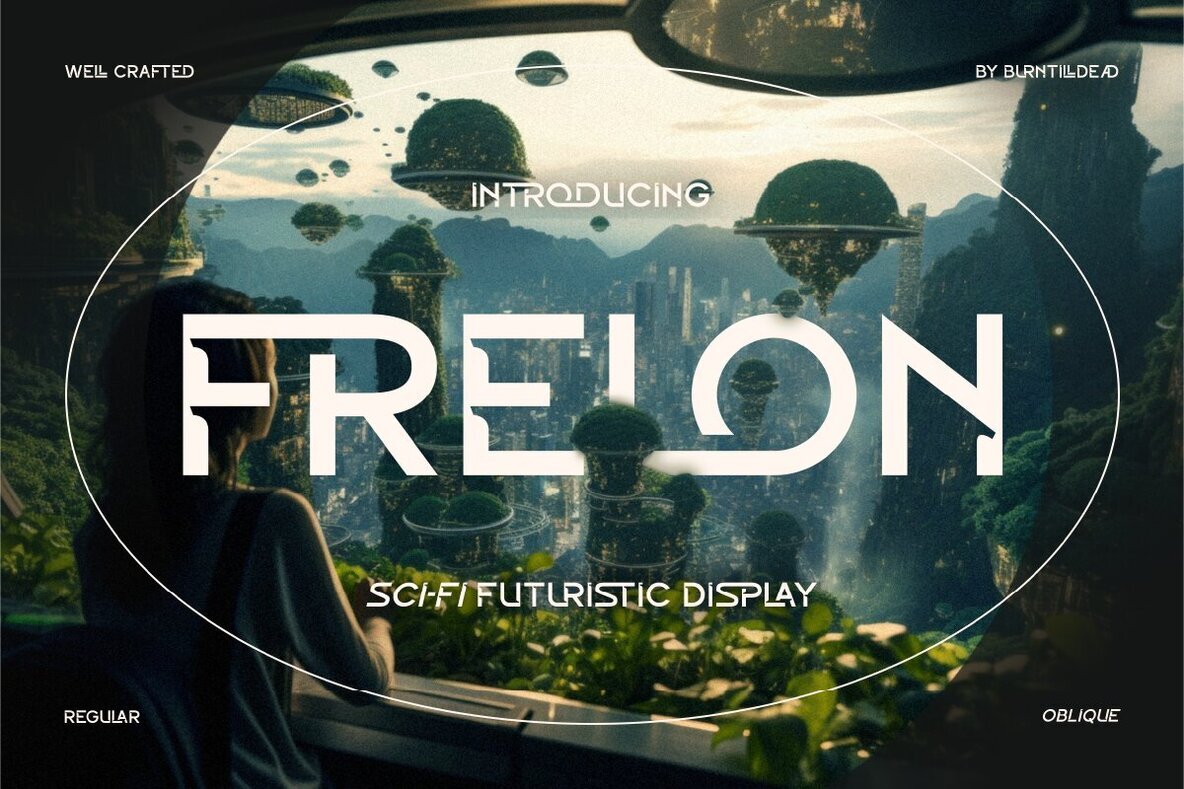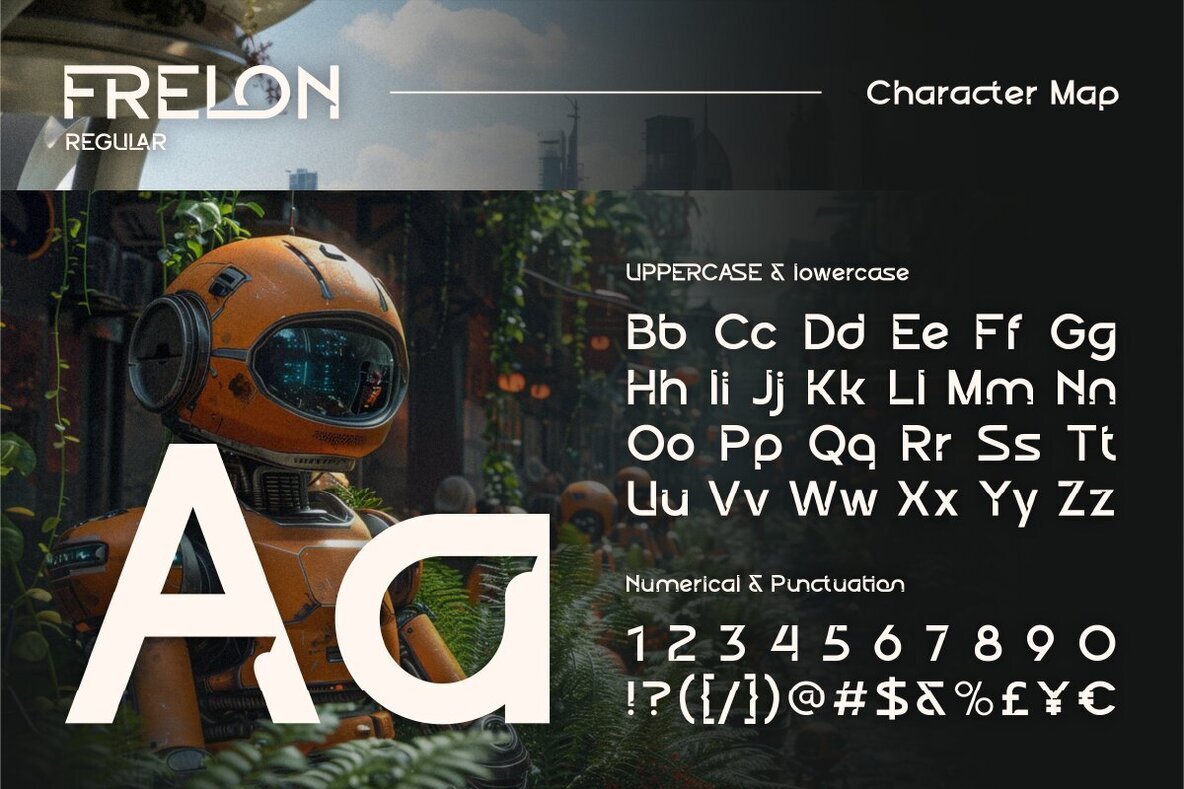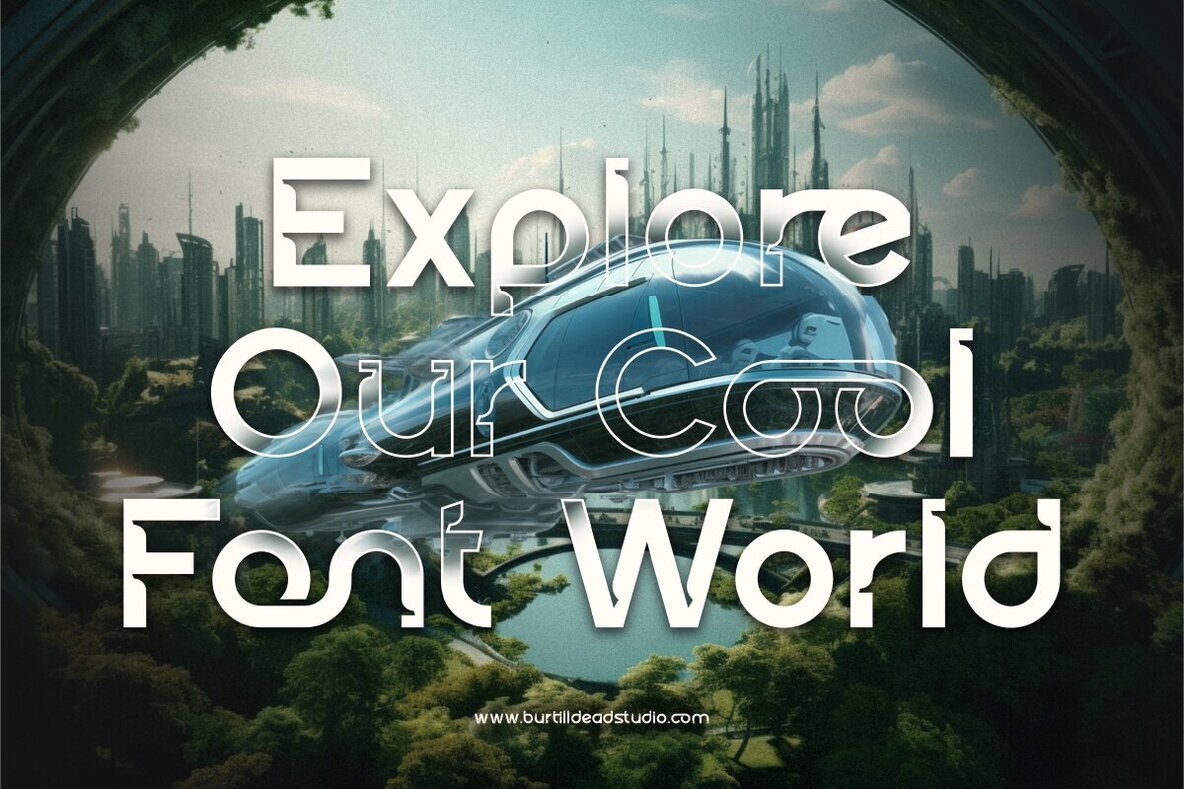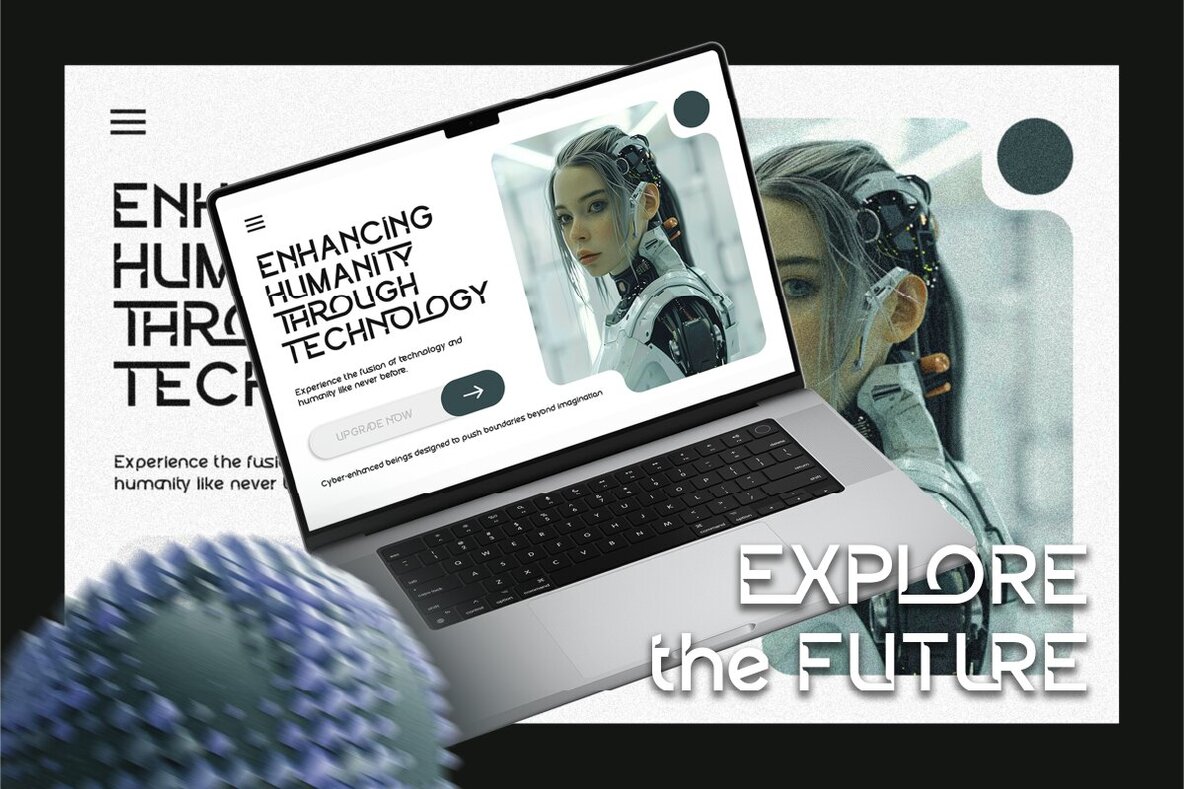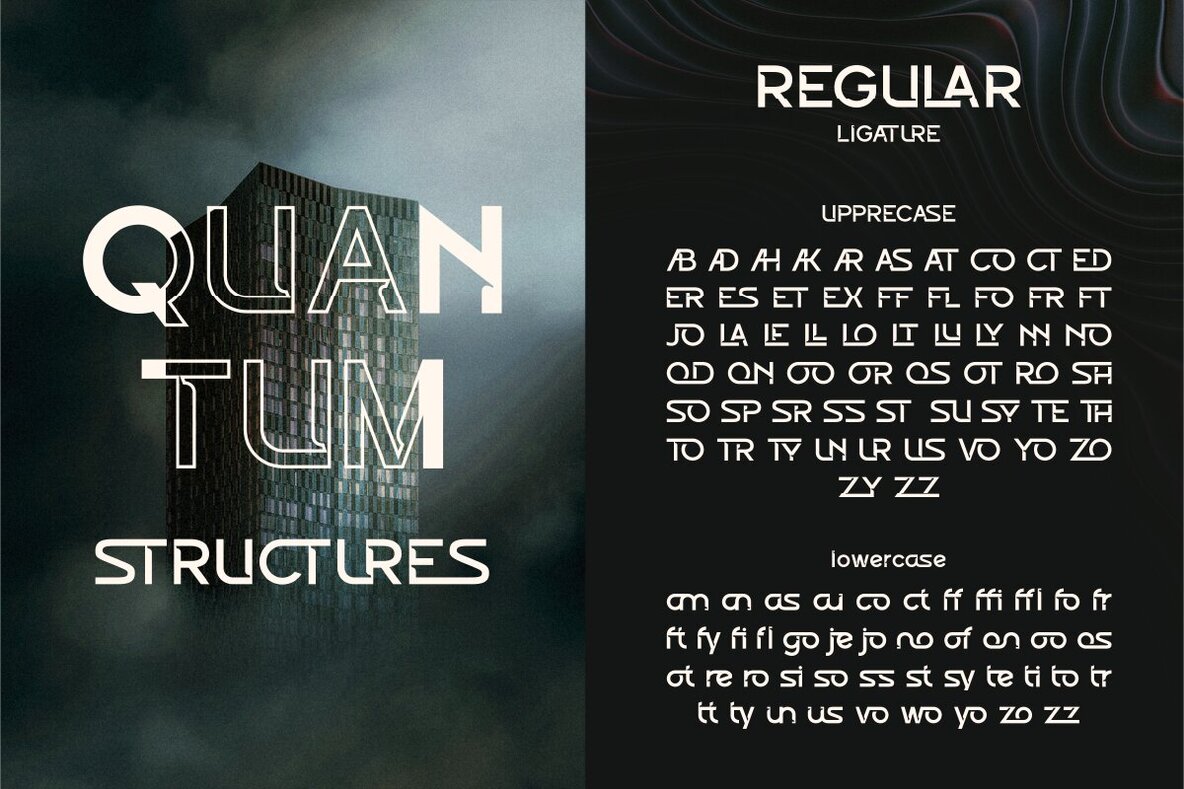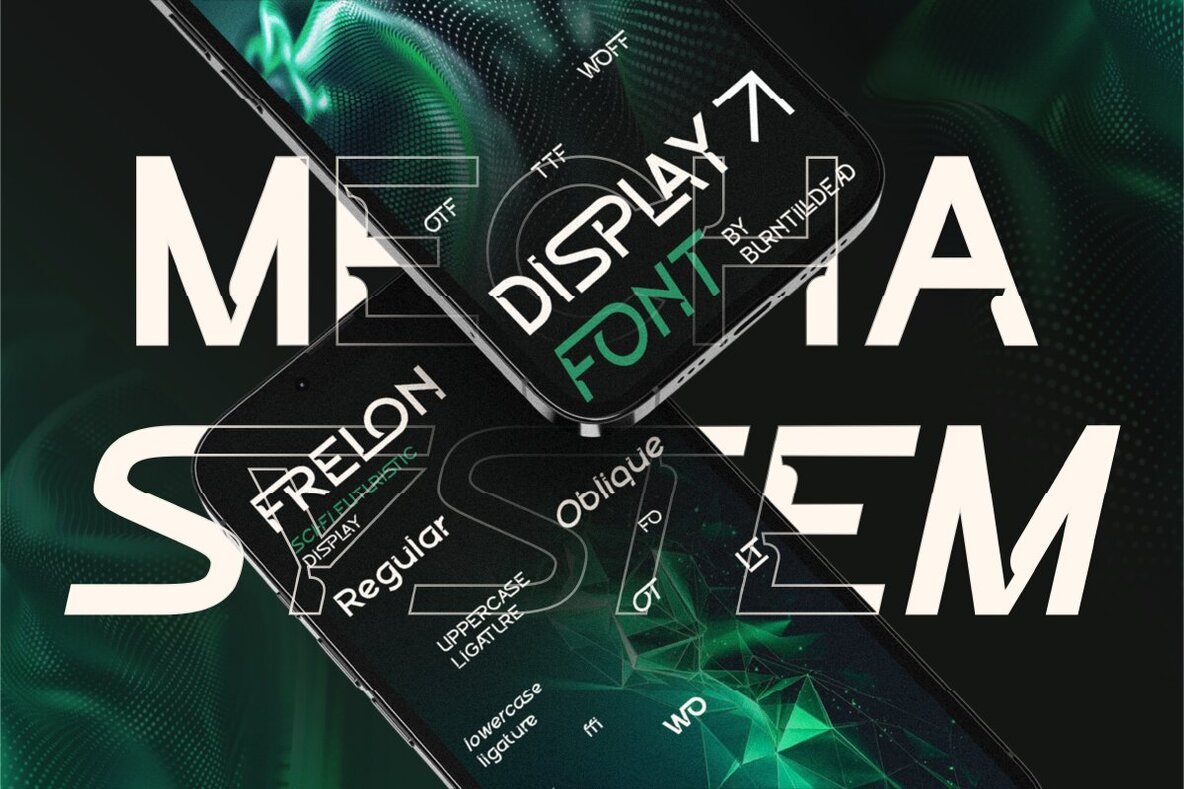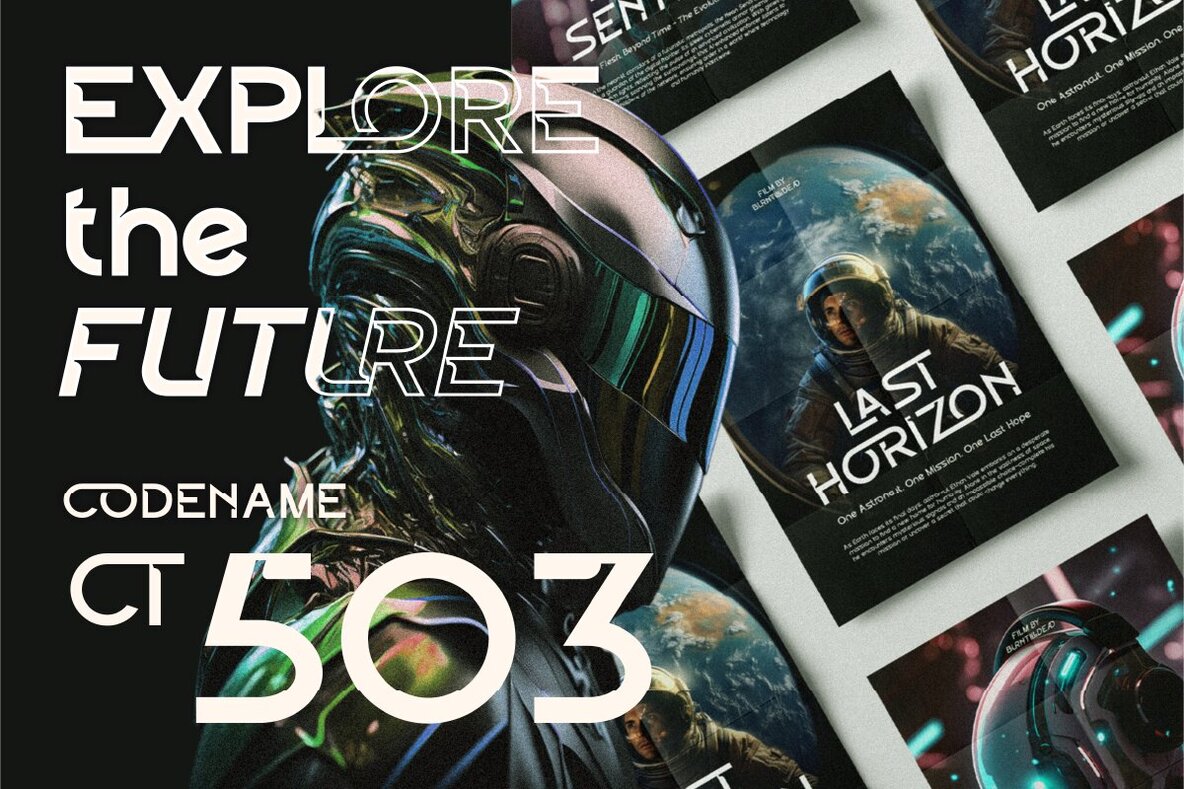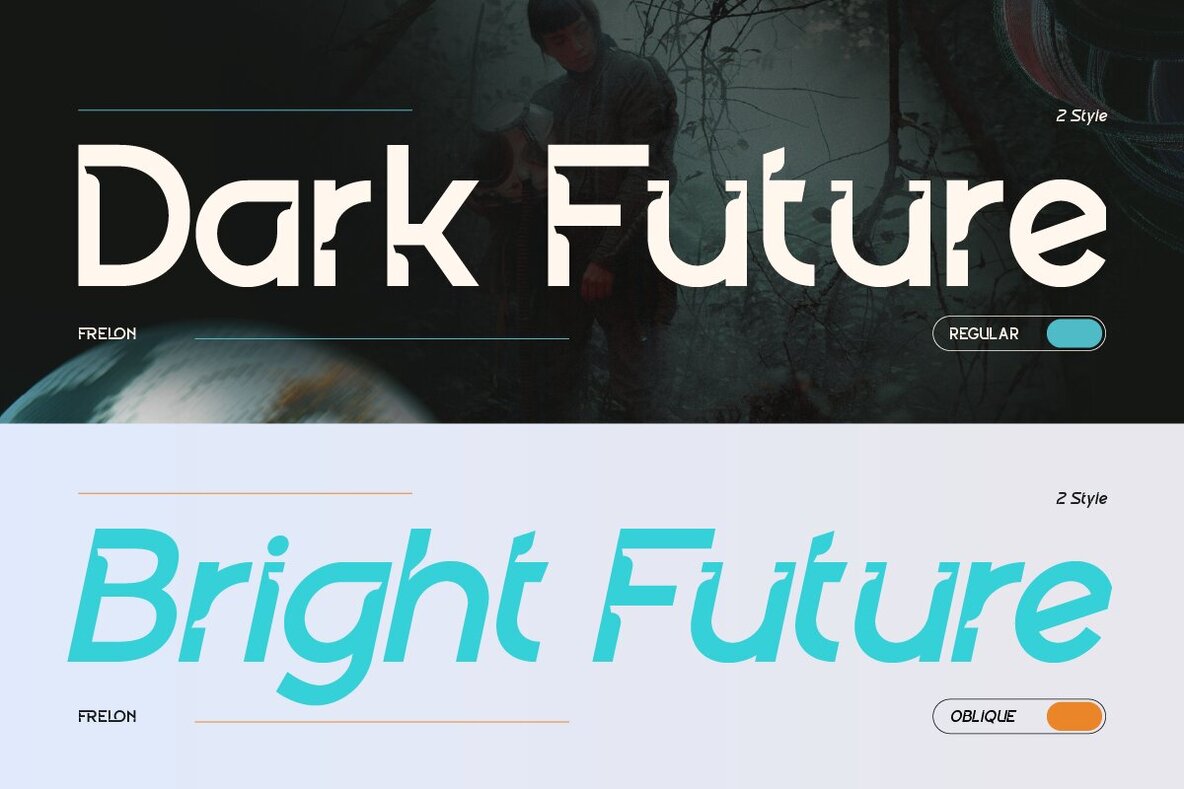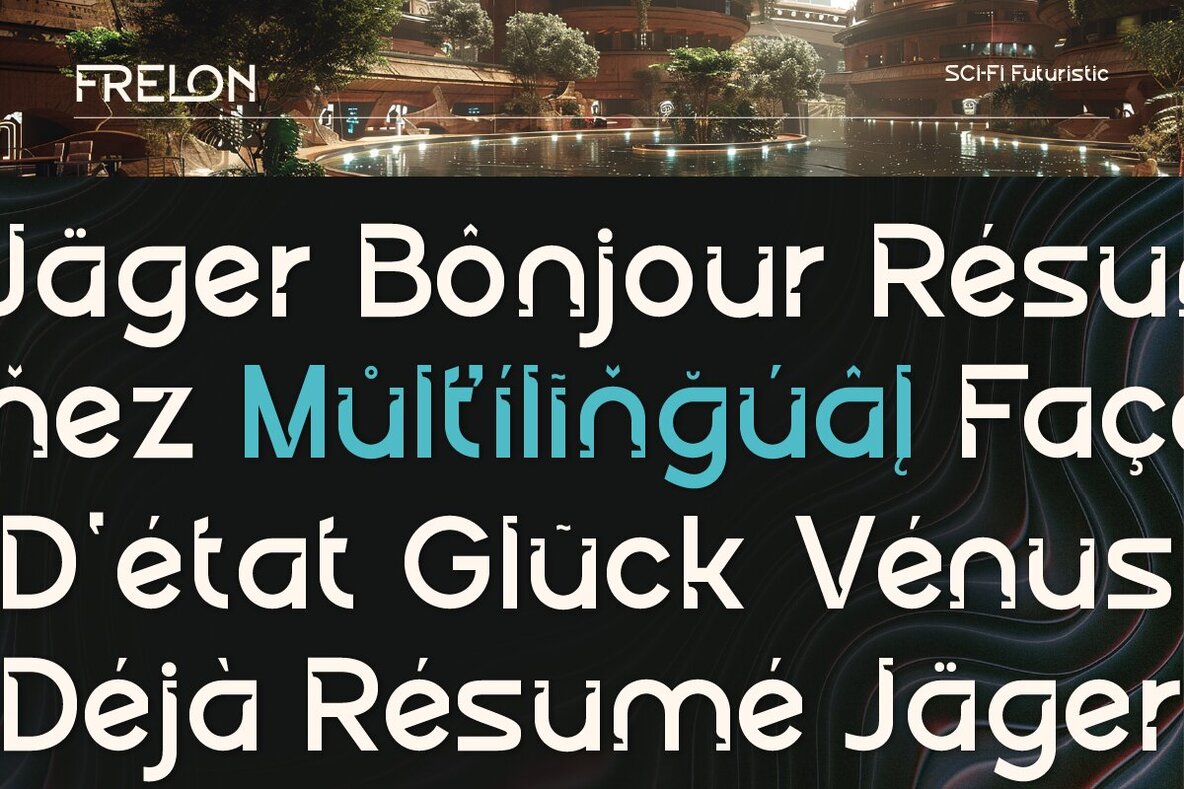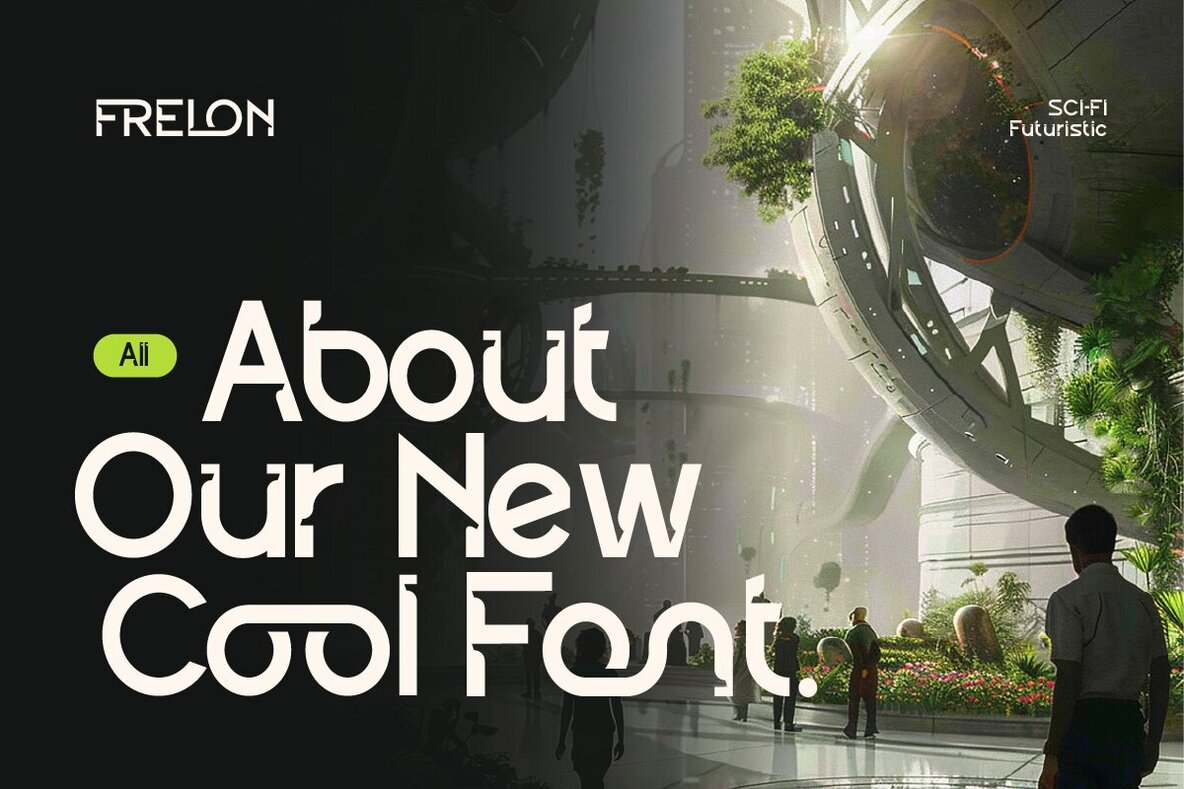
Frelon Font
Frelon Regular
Frelon Oblique
Introducing Frelon, a cutting-edge font that seamlessly marries bold modernity with futuristic flair. Specifically crafted for enthusiasts of daring and innovative designs, Frelon offers two distinct styles: Regular and Oblique. While the Regular style projects a strong, robust appearance, the Oblique version injects a sense of energy and motion. Ideal for branding projects, technology applications, gaming worlds, and sci-fi or cyberpunk themes, Frelon adds a sharp and contemporary touch to your creations. Whether you are designing a futuristic logo, an interface, or captivating graphics, this typeface enhances your project with its distinctive style.Explore the Futuristic Frelon Typeface